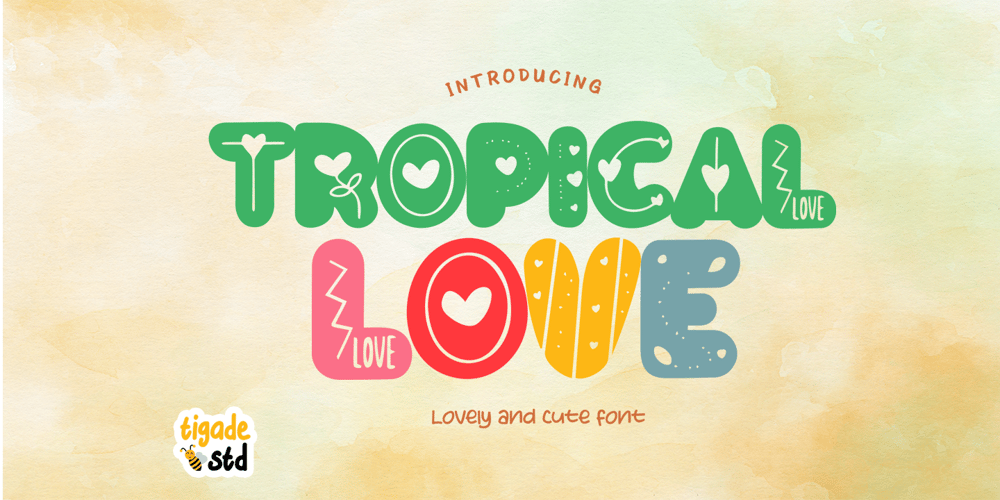
Tropical Love Font Family was designed by Doli Harahap and published by Tigade Std. Tropical Love contains 2 styles and family package options. Tropical Love is a cute, quirky, friendly decorative font. It is suitable for cartoon designs, book cover or just any creation that requires a lovely touch, this font will be an fabulous choice.